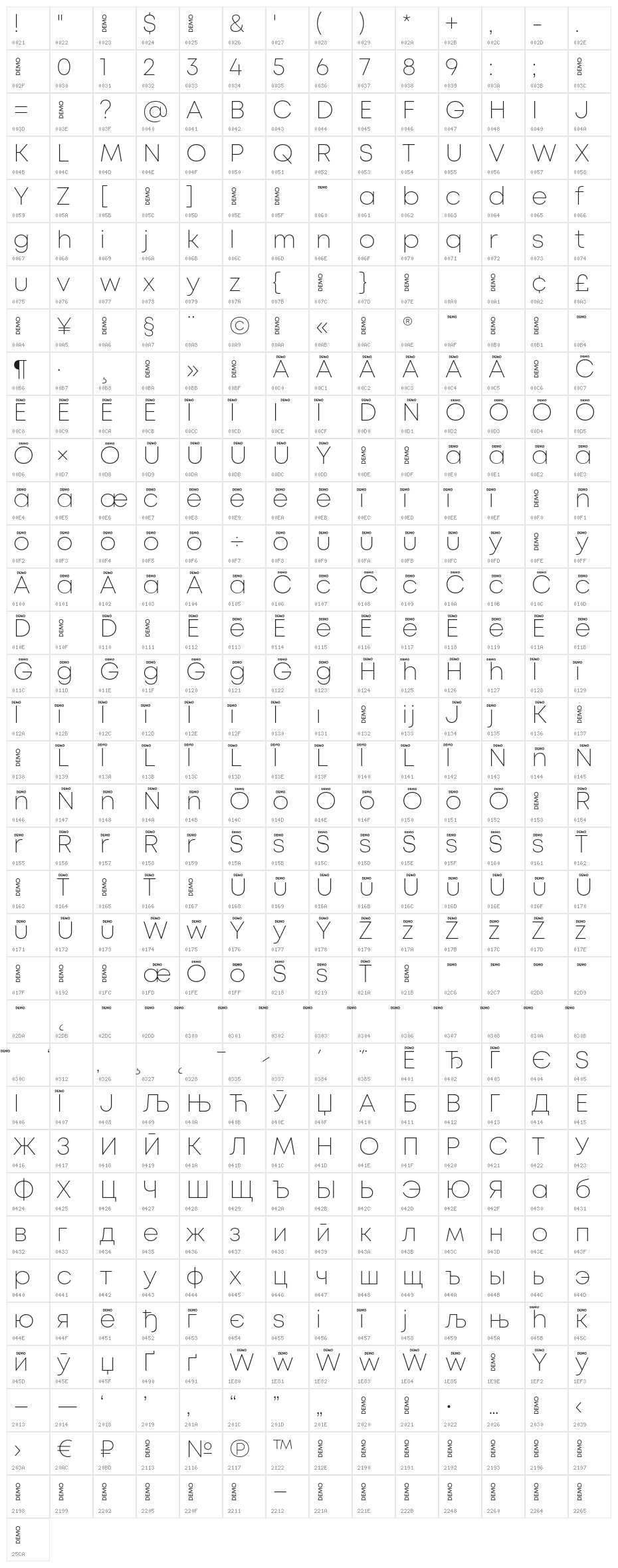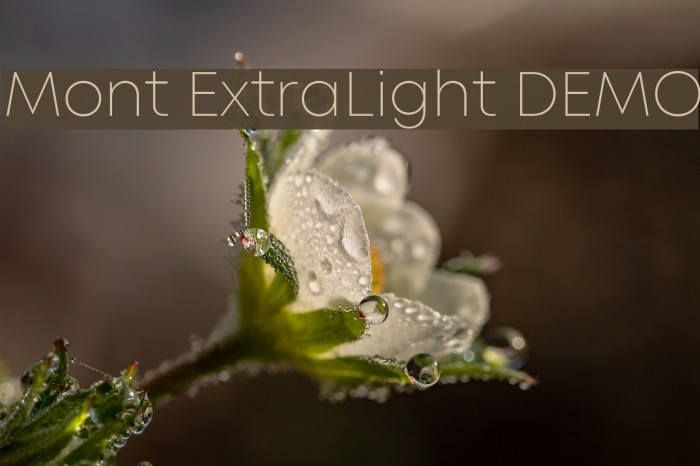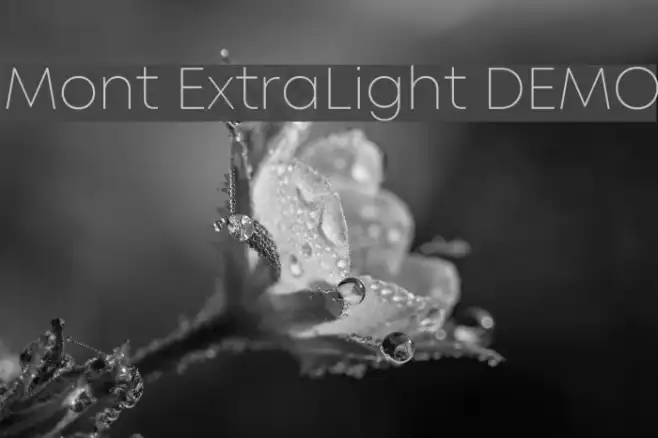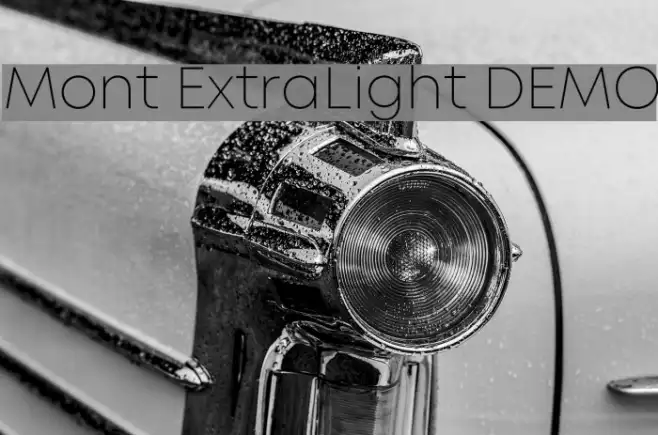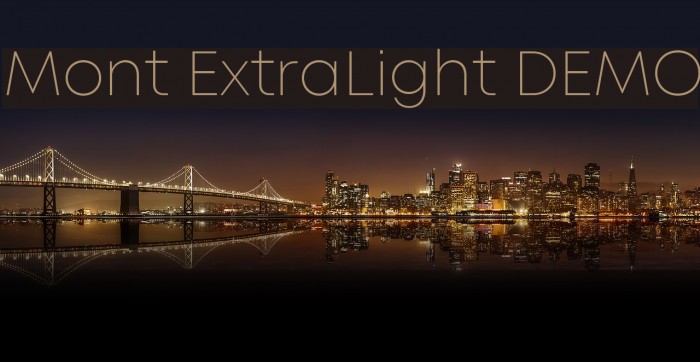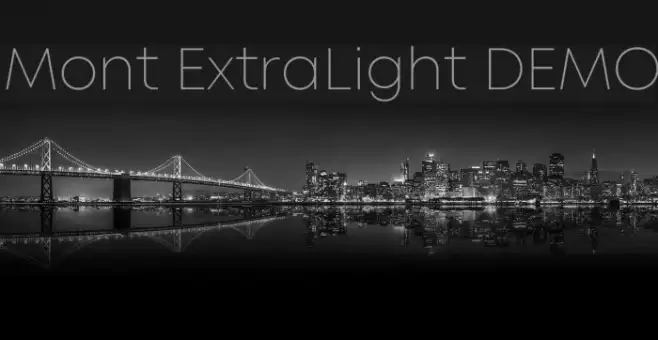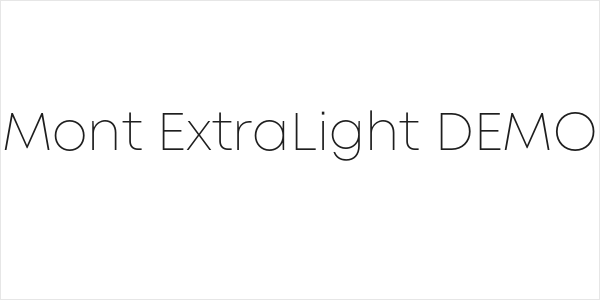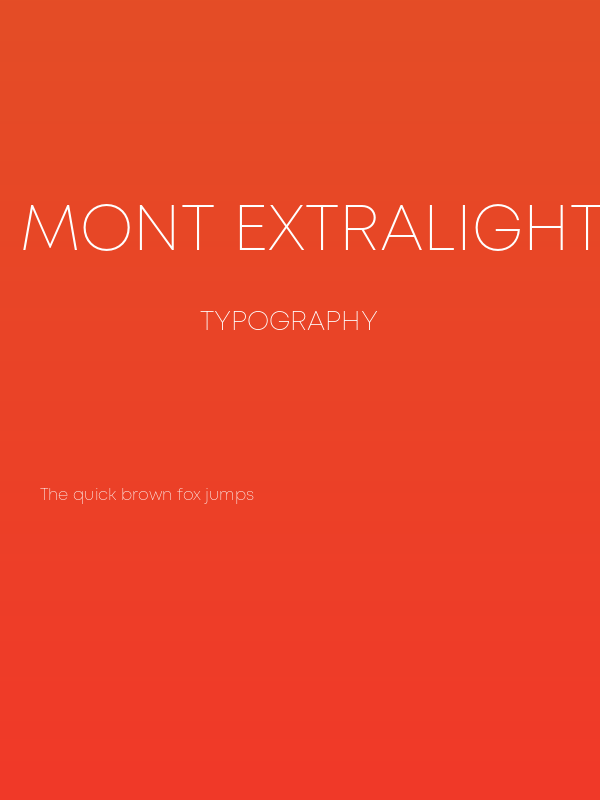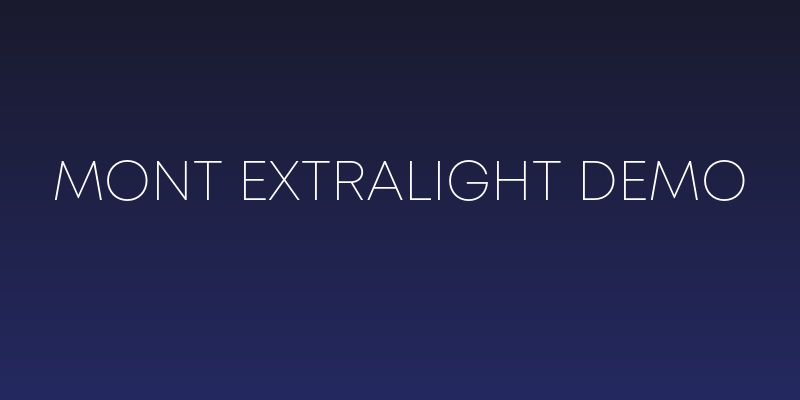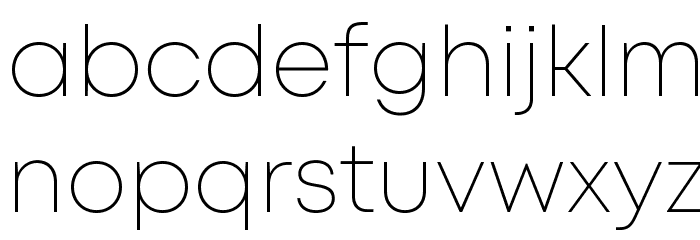
Mont ExtraLight DEMO Font
Mont ExtraLight DEMO Description
This font features a clean and minimalist design with a focus on simplicity and readability. The characters are evenly spaced, contributing to a harmonious and balanced appearance. The strokes are consistent and thin, giving it an elegant and modern feel. The uppercase and lowercase letters are well-proportioned, and the numerals are clear and easy to distinguish. The special characters are designed to complement the overall style, maintaining the font's sleek and contemporary aesthetic.
| Proposed Projects | Ideal for modern branding, minimalist design projects, digital interfaces, and editorial content. |